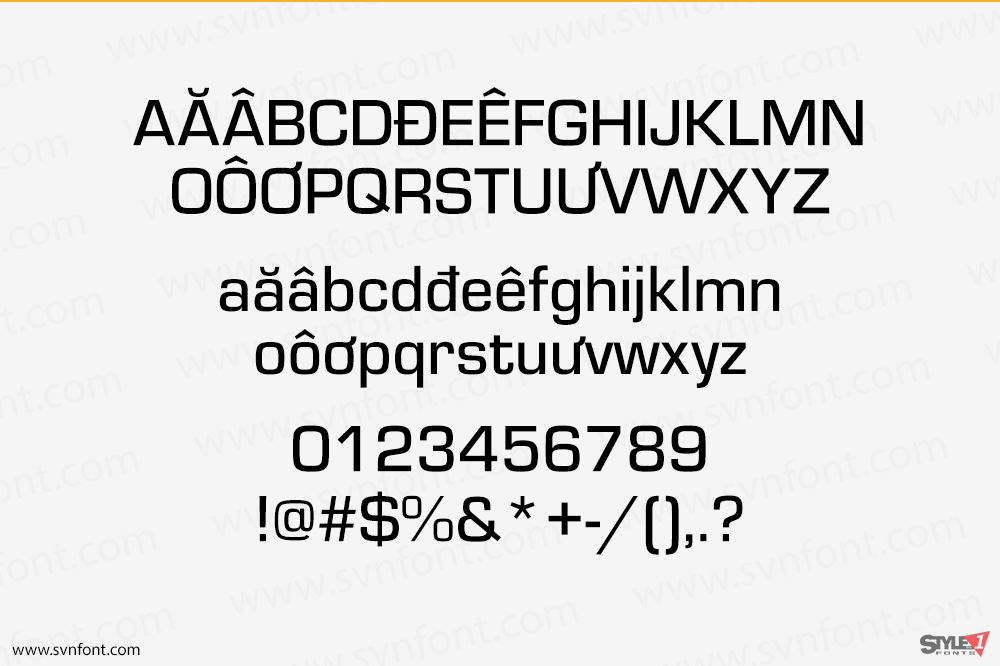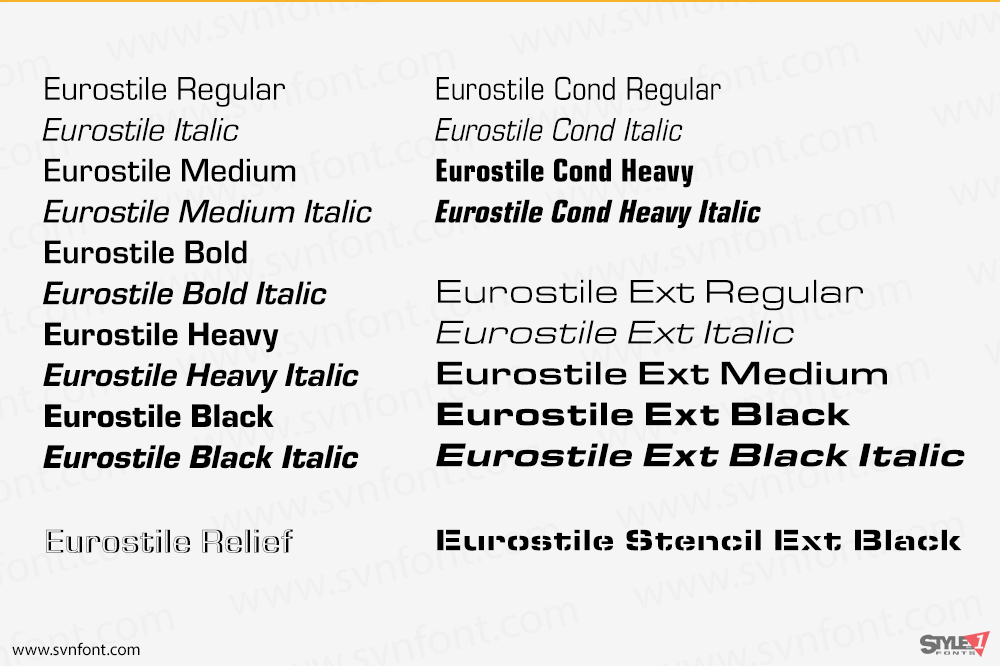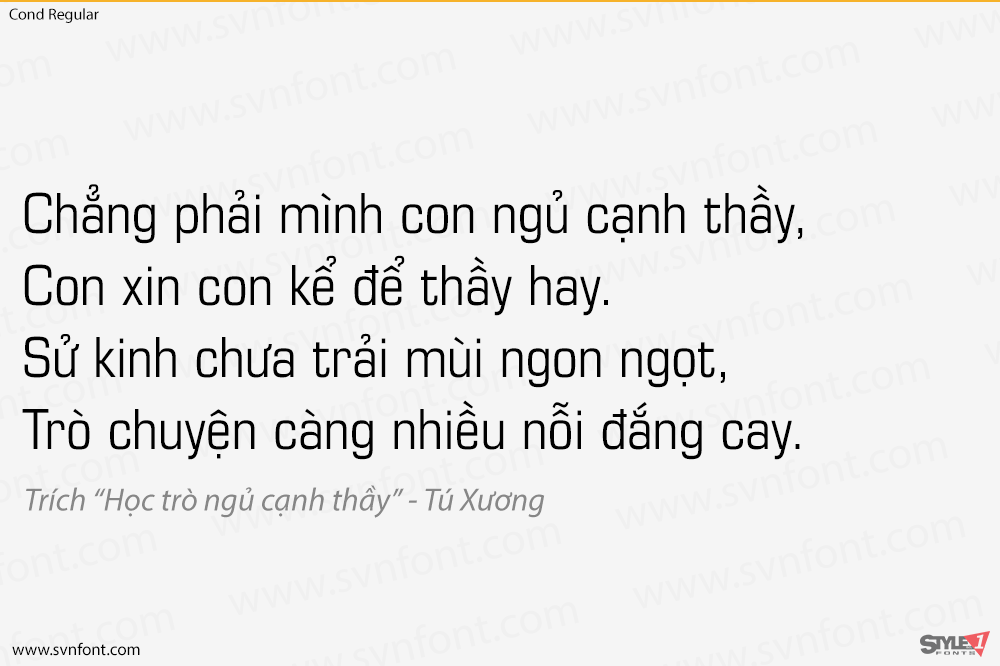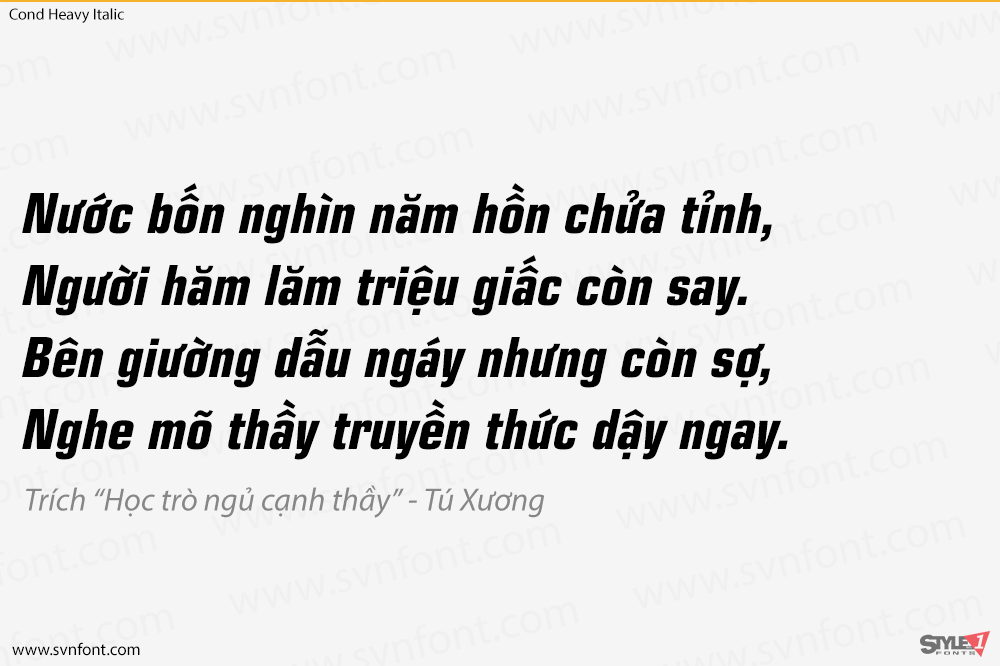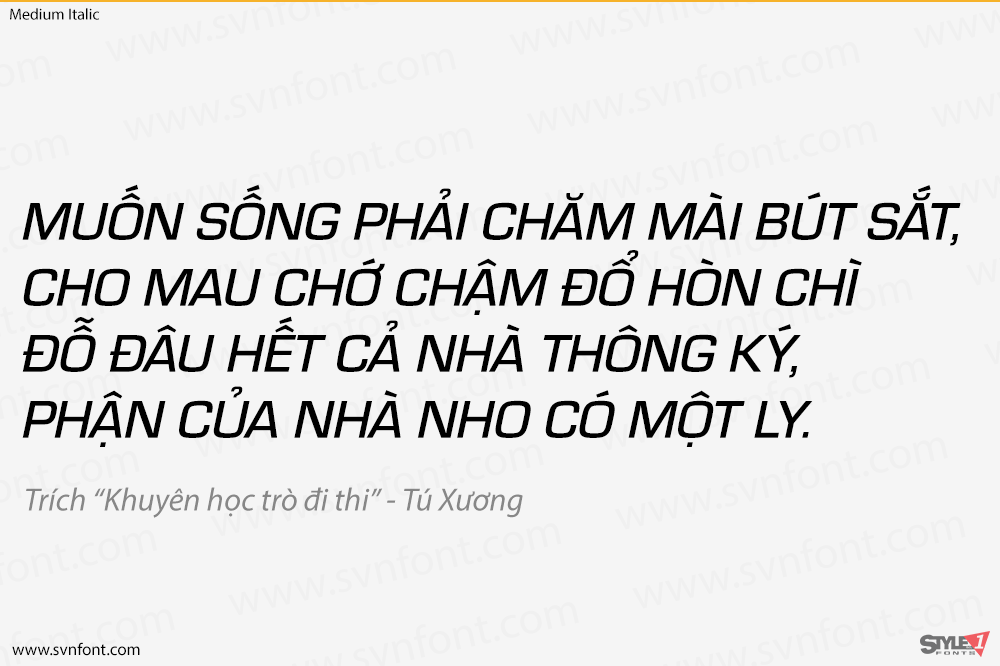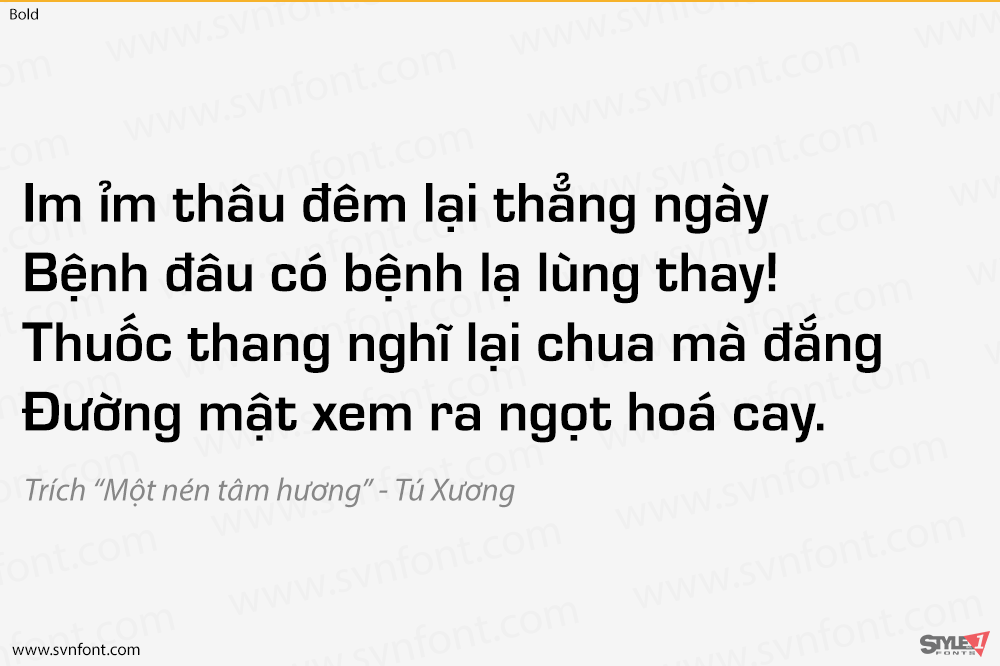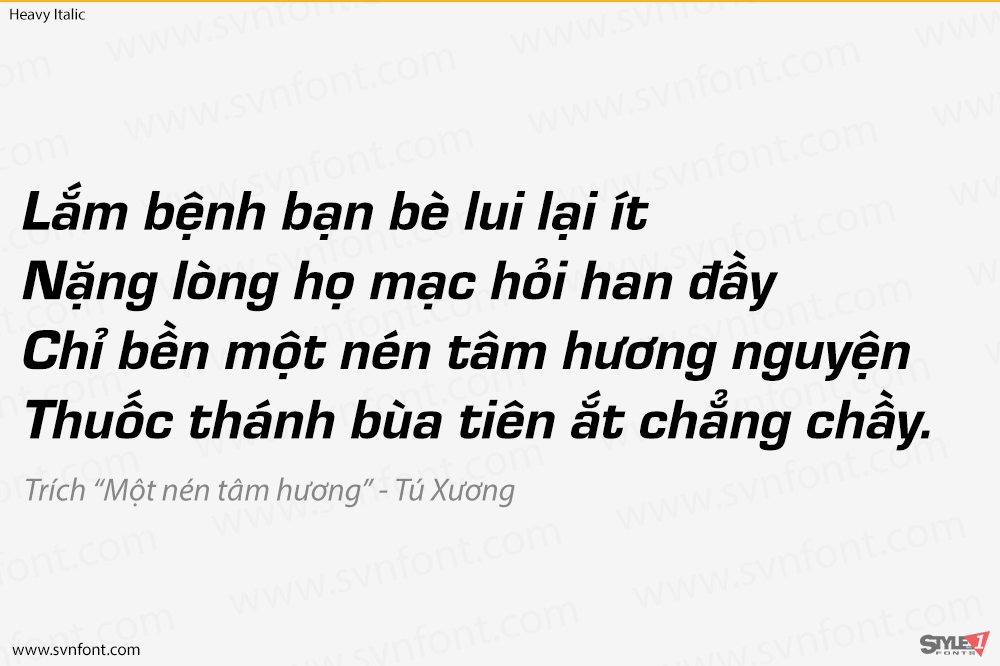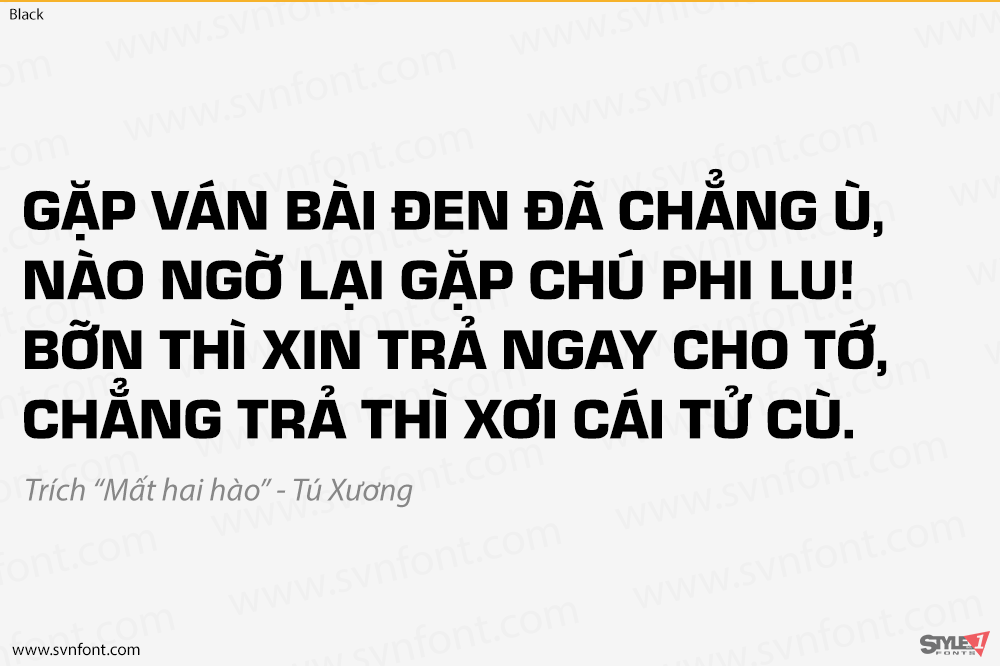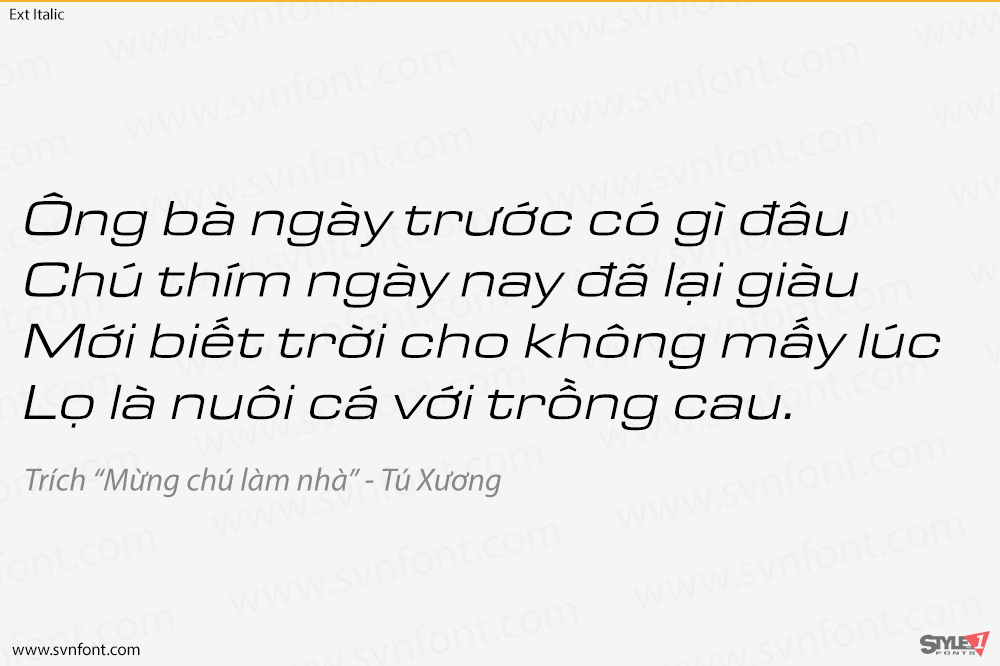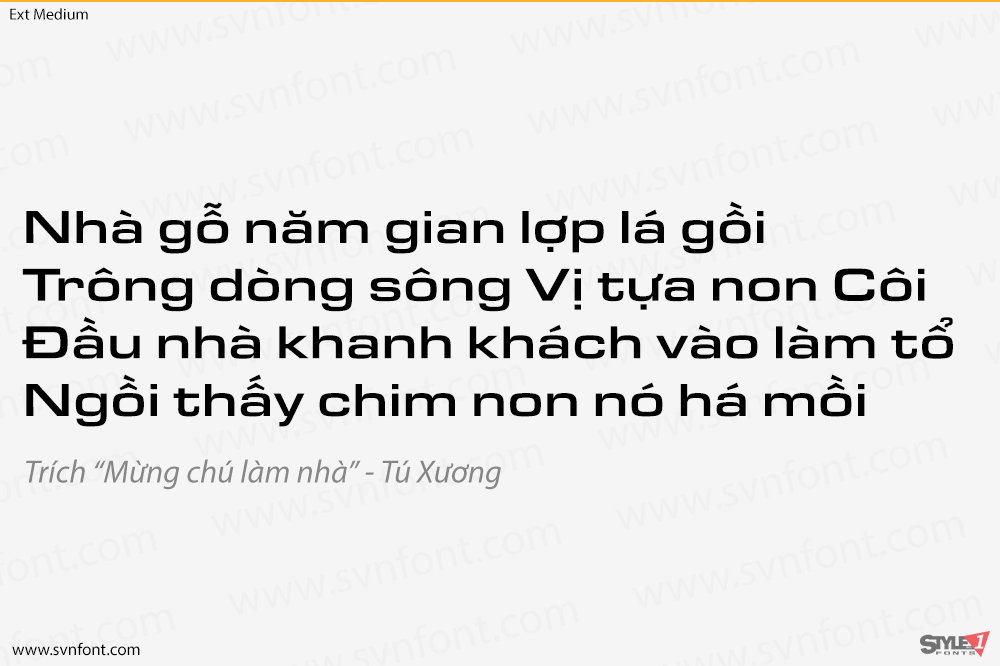
[Việt hóa] SVN-Eurostile (21 fonts)
The Eurostile font family was designed (by Novarese and Butti in 1952) to complement the titling font, Microgramma, by offering a lowercase alphabet. Issued by the Nebiolo foundry, the rather square sans serif Eurostile became popular for display and advertising use. The linear nature of Eurostile suggests modern architecture, and its attraction is technical and functional. Eurostile is commonly misspelled Eurostyle.
Nhà thiết kế: Aldo Novarese
Nhà phát hành: URW Type Foundry